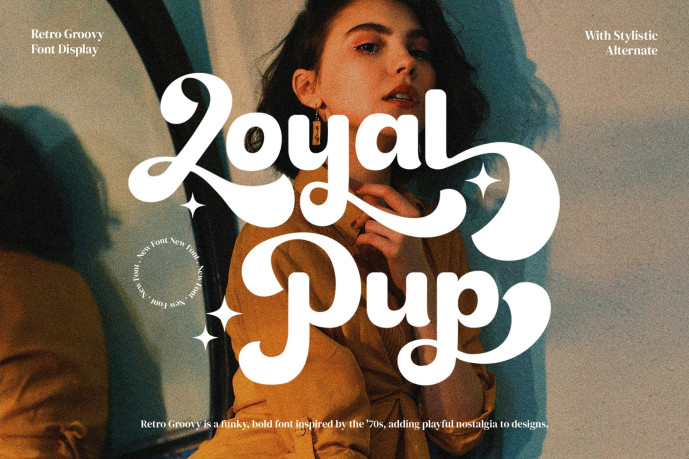
Loyal Pup – Retro Groovy Typeface
Designer: Inviline
Loyal Pup – Retro Groovy Typeface inspired by the bubbly spirit of the ’70s. Bouncy curves, smooth swashes, and playful letter endings bring instant warmth and personality to bold headlines and vintage-inspired branding. Whether you’re crafting vibrant posters, café logos, or fun packaging, Loyal Pup delivers a friendly groove that pops on any layout.
• Uppercase & lowercase
• Numerals & punctuation
• Stylistic alternates & swashes
• Multilingual support (Latin + accents)
Perfect For :
• Retro & vintage posters
• Branding & logo lockups
• Product packaging & labels
• Café/coffee signage & menus
• Social media titles & quote graphics
• Album/festival visuals & event flyers